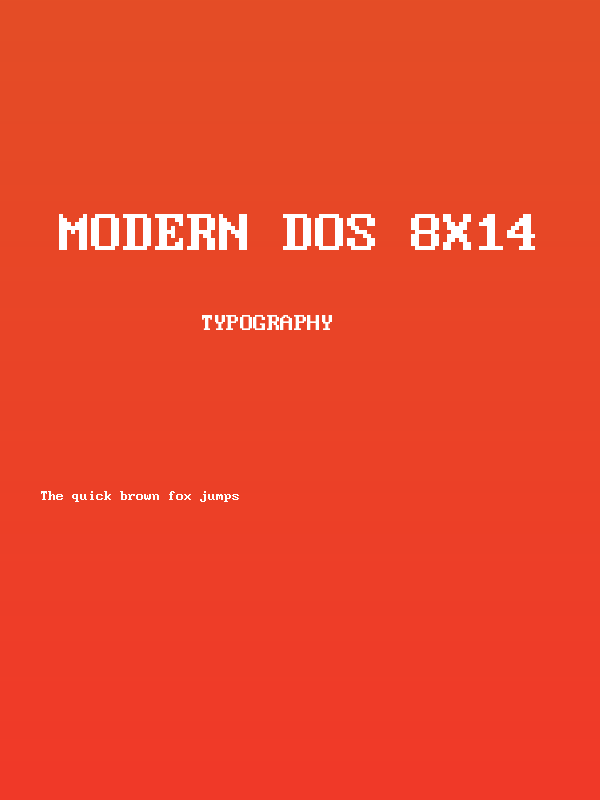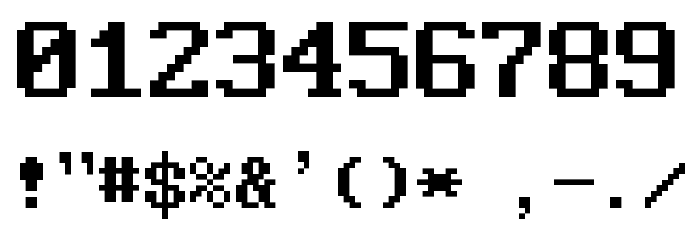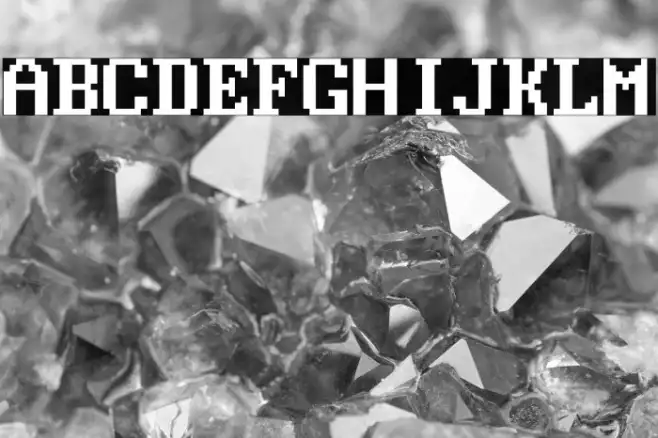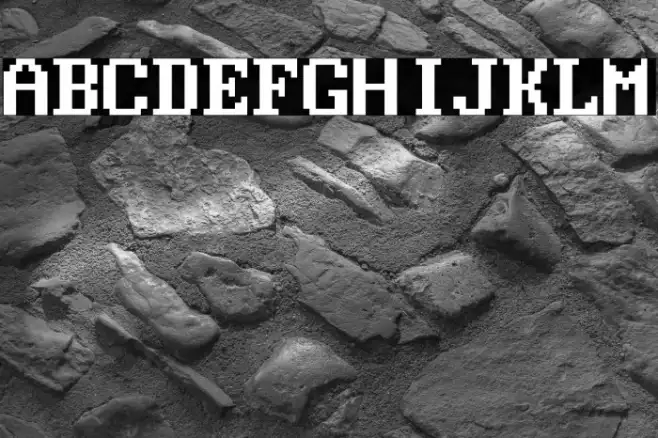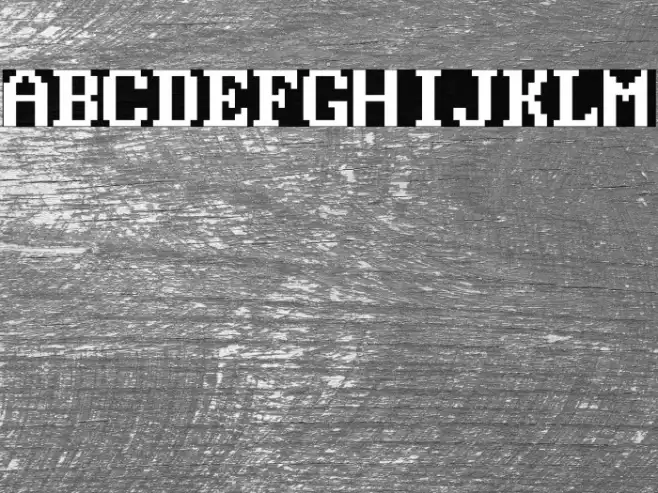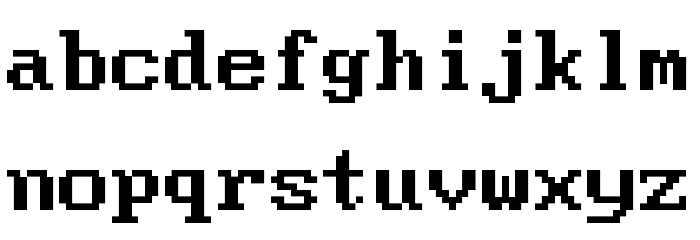
Modern DOS 8x14 Font
Modern DOS 8x14 Description
This font features a pixelated, monospaced design reminiscent of early computer displays and classic DOS interfaces. Each character is constructed with a uniform grid-like pattern, giving it a distinctly retro, digital appearance. The uppercase and lowercase letters maintain a consistent height and width, emphasizing the monospaced nature. The numerals and special characters follow the same structured, blocky style, ensuring readability and uniformity across all glyphs. This font's nostalgic charm and simplicity make it ideal for projects that aim to evoke a vintage tech aesthetic.
| Use Case | Headlines, Coding, Digital Art |
| Proposed Projects | Ideal for retro-themed designs, coding environments, digital art, and projects that require a vintage tech aesthetic. |